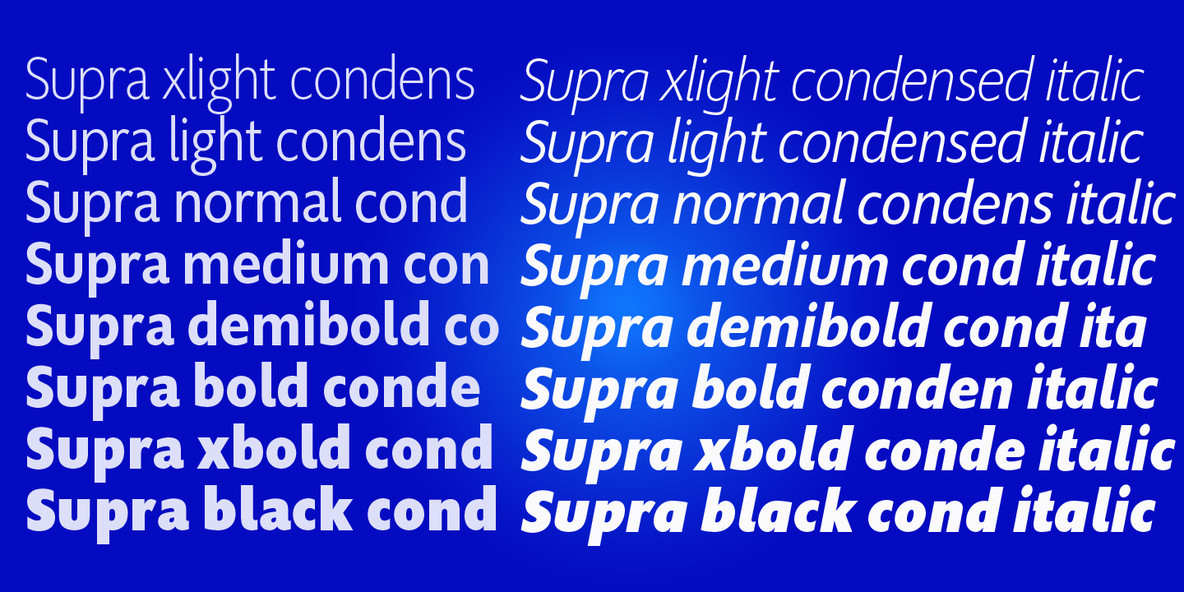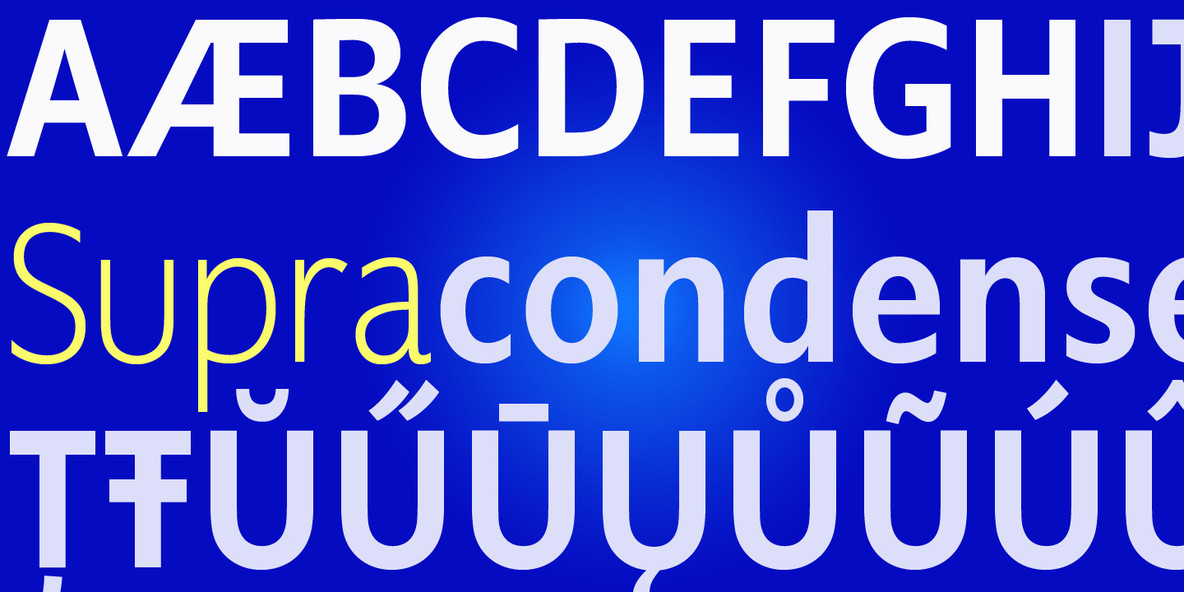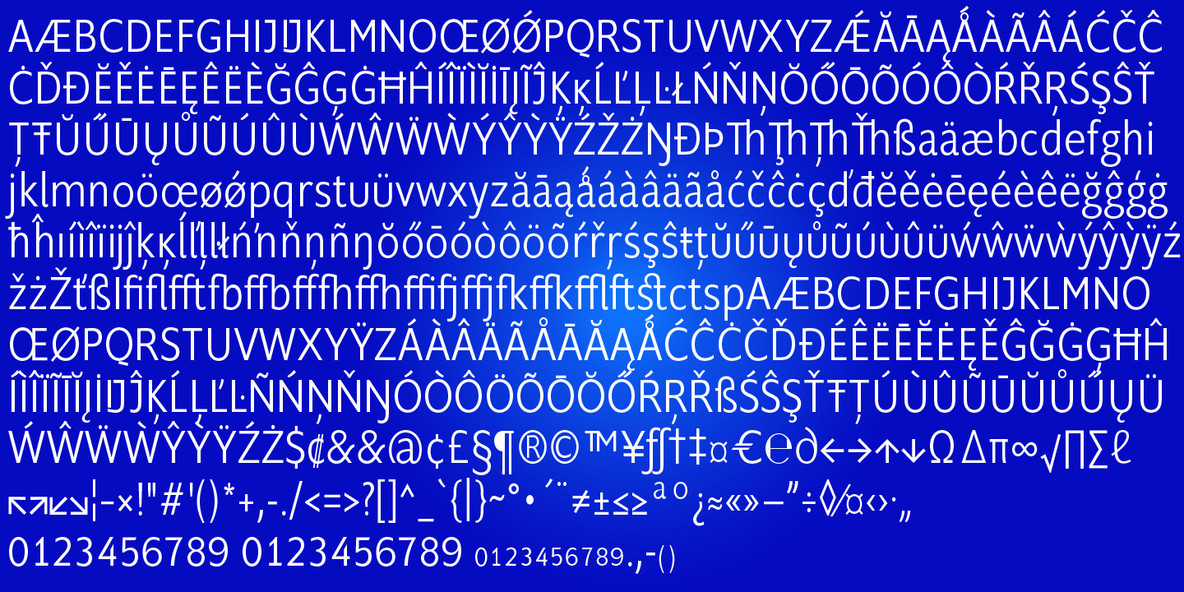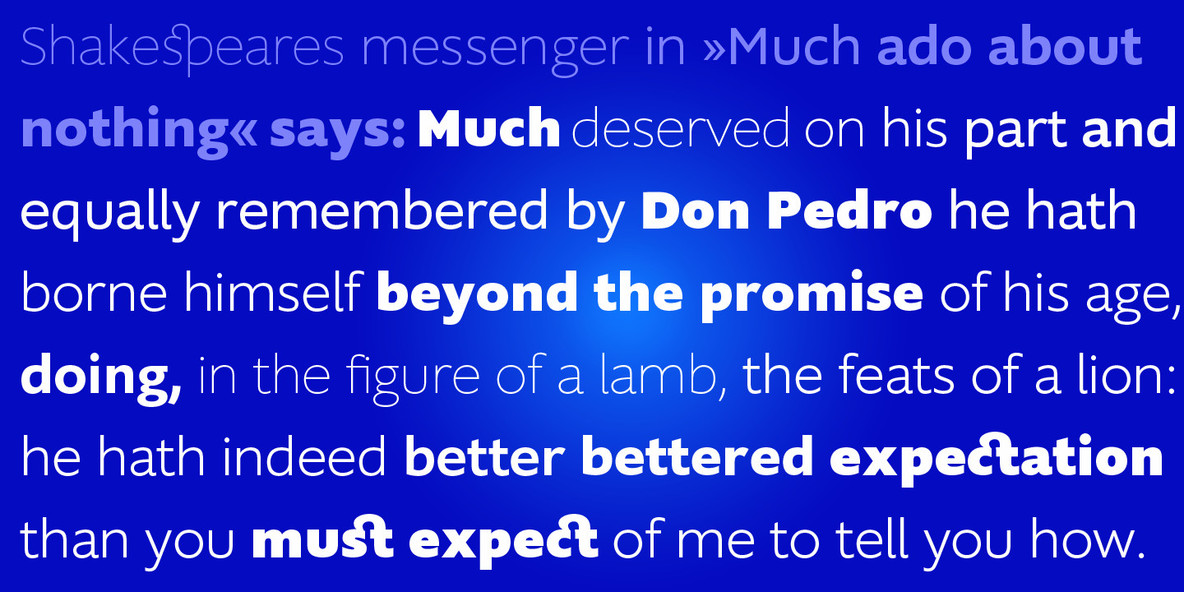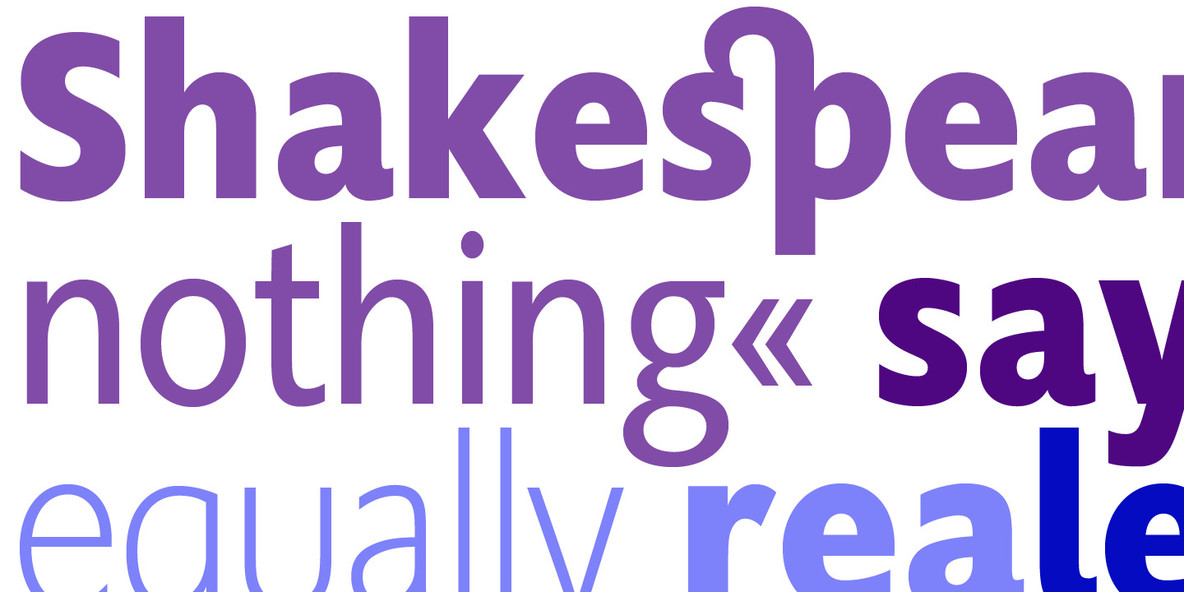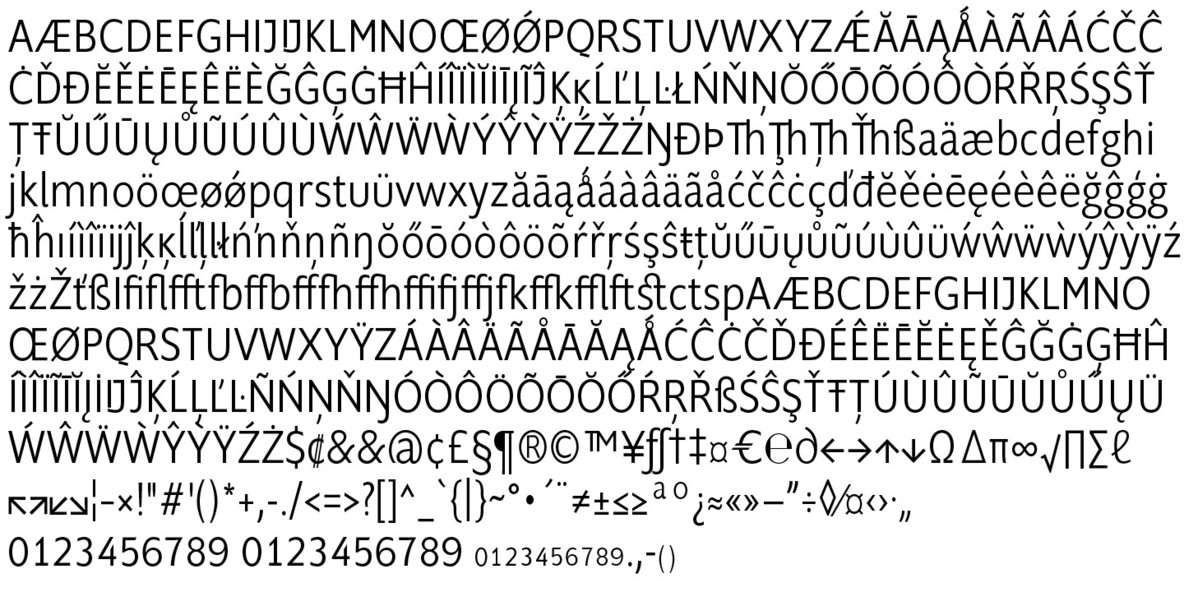
Supra Condensed Font
"Supra Condensed" designed by Gert Wiescher in 2013 – is the condensed version to this new sans typeface family of eight weights with matching italics. The condensed version is designed for space-saving typography but with high legibility in mind.
The light and normal weights and the dominant x-height with its high ascenders make for easy reading of long copy. The heavy and x-light weights are great for elegant headlines.
Supra is an OpenType family for professional typography with an extended character set of over 700 glyphs. It supports more than 40 Central- and Eastern-European as well as many Western languages. Ligatures, different figures, fractions, currency symbols and smallcaps can be found in all cuts. with each other.